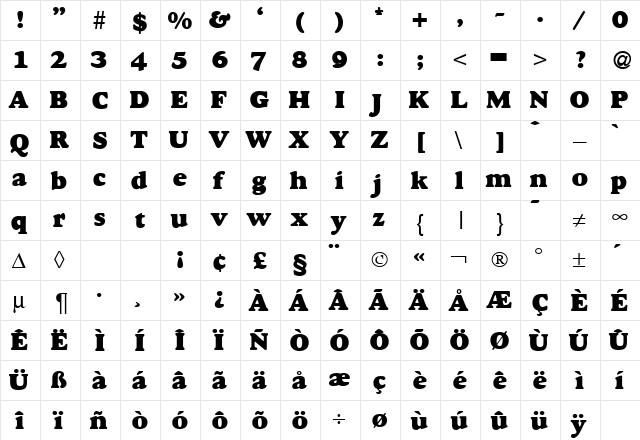
GoudyOldStyleTwoHeavy Regular
Design Context for GoudyOldStyleTwoHeavy Typeface
GoudyOldStyleTwoHeavy brings classic typographic sensibility to the table — its serifs and measured letterforms reflect centuries of print heritage.
Pro Tip: Set GoudyOldStyleTwoHeavy with slightly loose tracking in headlines to let each letterform's detail read clearly at display sizes.